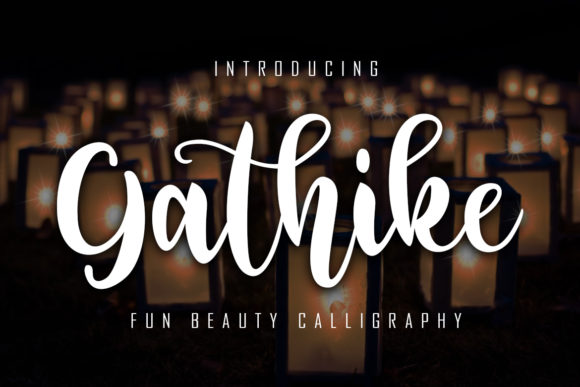
Introducing Gathike Font - The Quintessential Handwritten Masterpiece for Wedding Websites
Prepare to be captivated by Gathike, a remarkable script font born from the desire to create a timeless and emotive masterpiece. This labor of love, meticulously crafted by the talented Skiiller Studio, is not just a font; it's an experience that will transform your wedding website into a visual symphony.
Unleash the allure of Gathike and let its bold strokes and graceful curves evoke a sense of timeless romance on your wedding website. Impeccably designed to be down-to-earth, readable, and universally versatile, Gathike effortlessly adapts to any background, whether it's a vibrant tapestry of colors or a minimalist canvas of elegance.
With Gathike, your wedding website will not merely convey information; it will paint a picture of love, joy, and eternal commitment. Let the beauty of Gathike's hand-drawn characters weave their magic, transforming your website into a captivating narrative that captures the essence of your special day.
Your visitors will be enchanted by the effortless charm of Gathike, a font that whispers of heartfelt promises and forever vows. Its casual elegance will create a warm and welcoming ambiance, inviting guests to immerse themselves in the love story unfolding on your website.
With Gathike, you hold the key to unlocking a world of design possibilities. Its remarkable versatility extends beyond wedding websites, making it an ideal choice for invitations, save-the-dates, social media announcements, and any other creative project where a touch of handwritten elegance is desired.
Experience the magic of Gathike today and let your wedding website radiate with the beauty of love and commitment. Allow this exceptional font to be the storyteller, guiding your visitors through a journey of heartfelt emotions and lifelong memories.